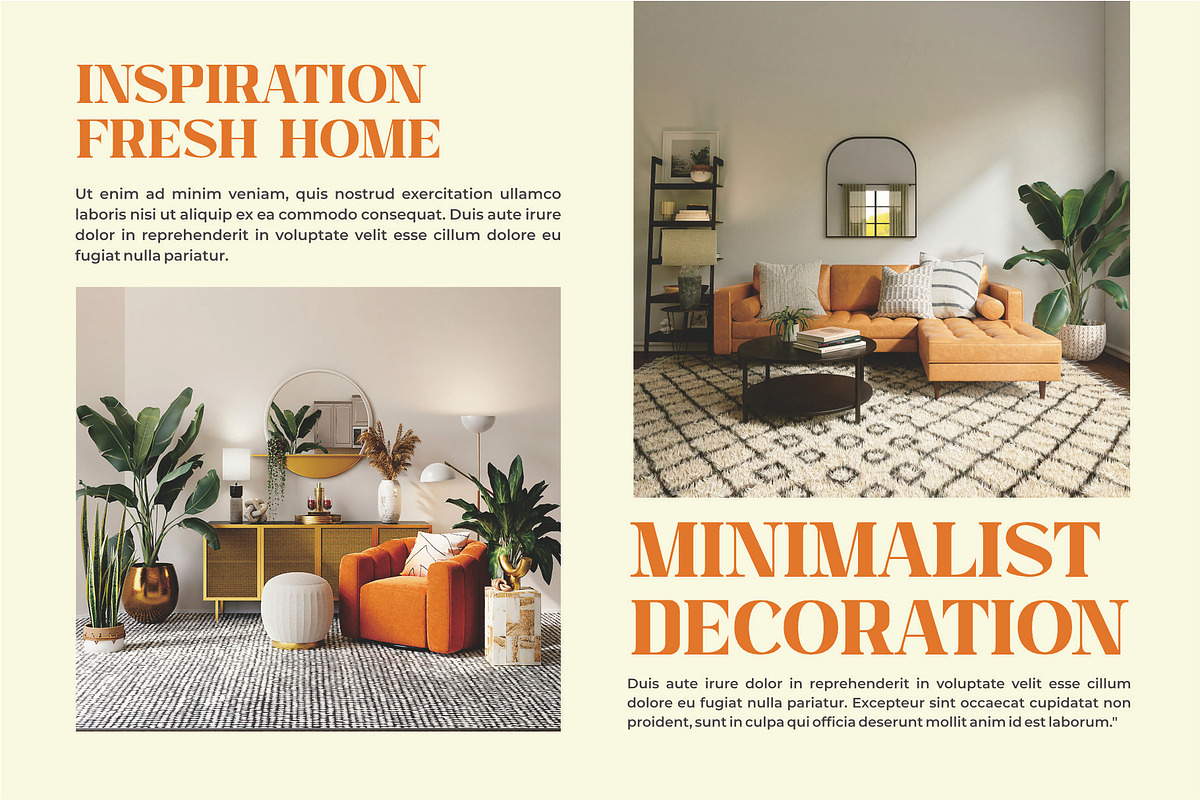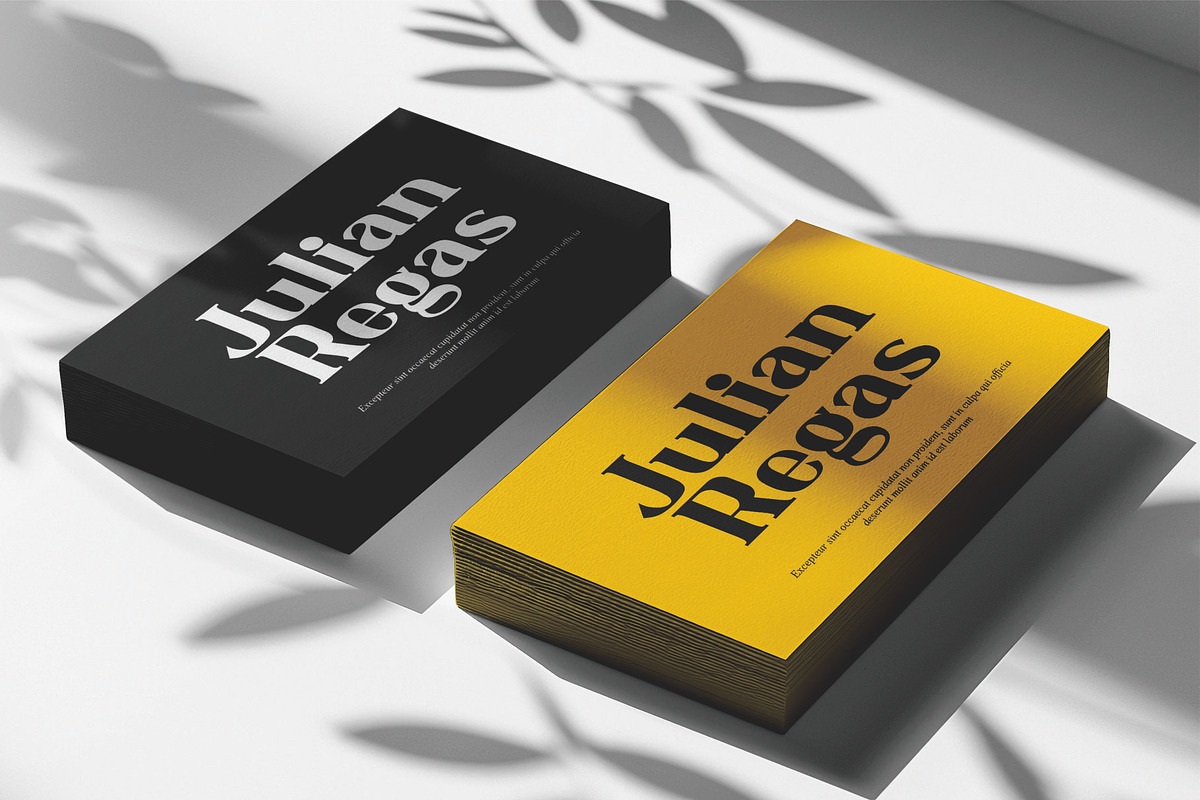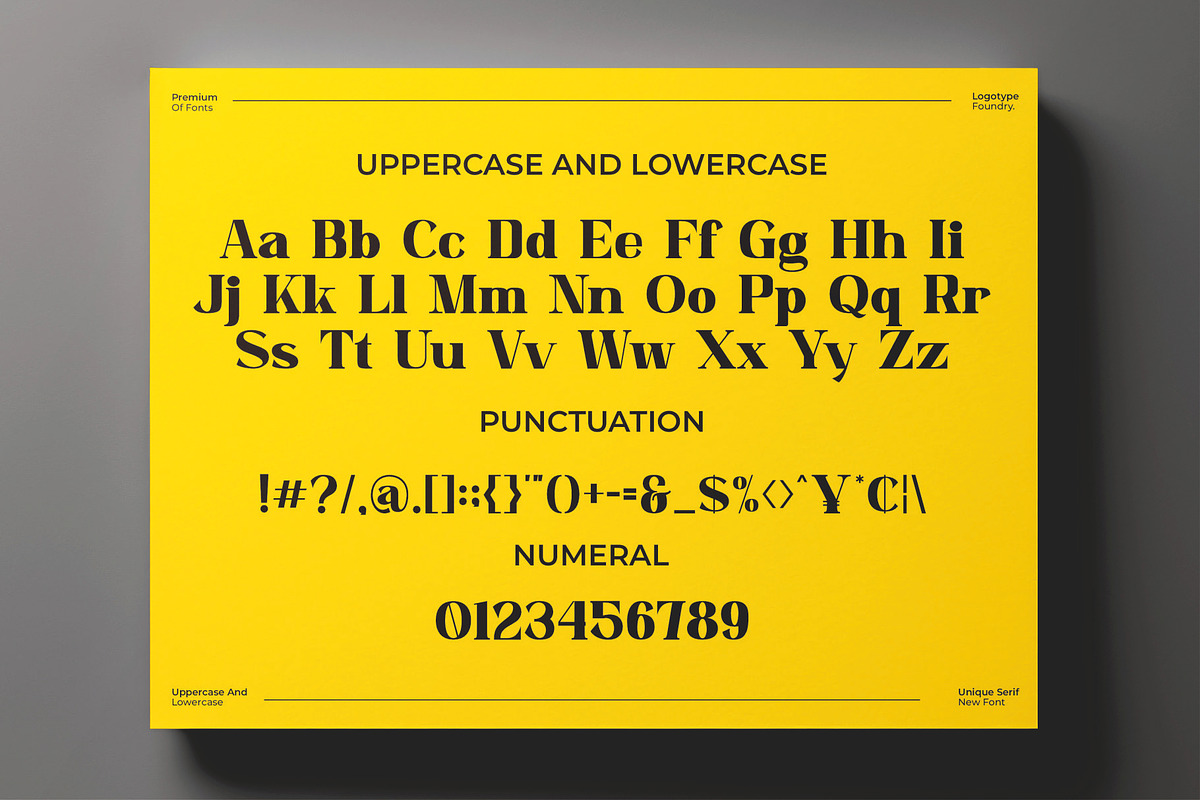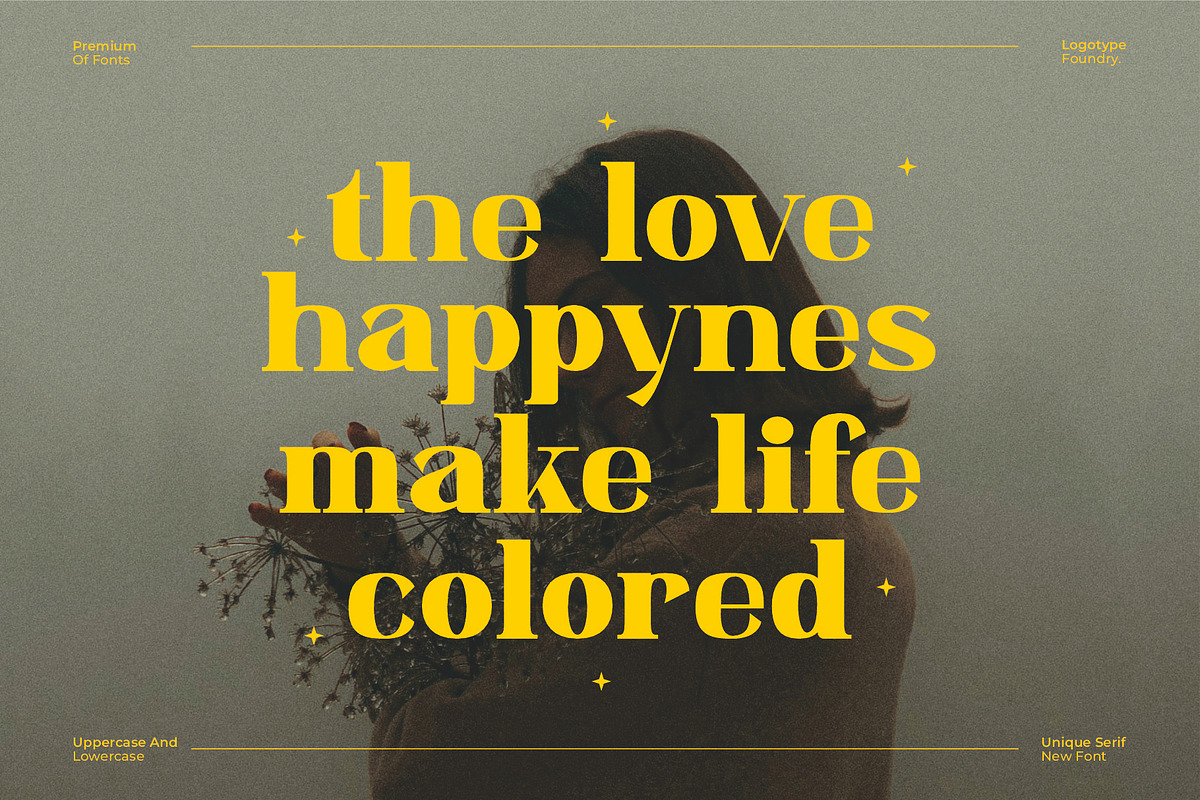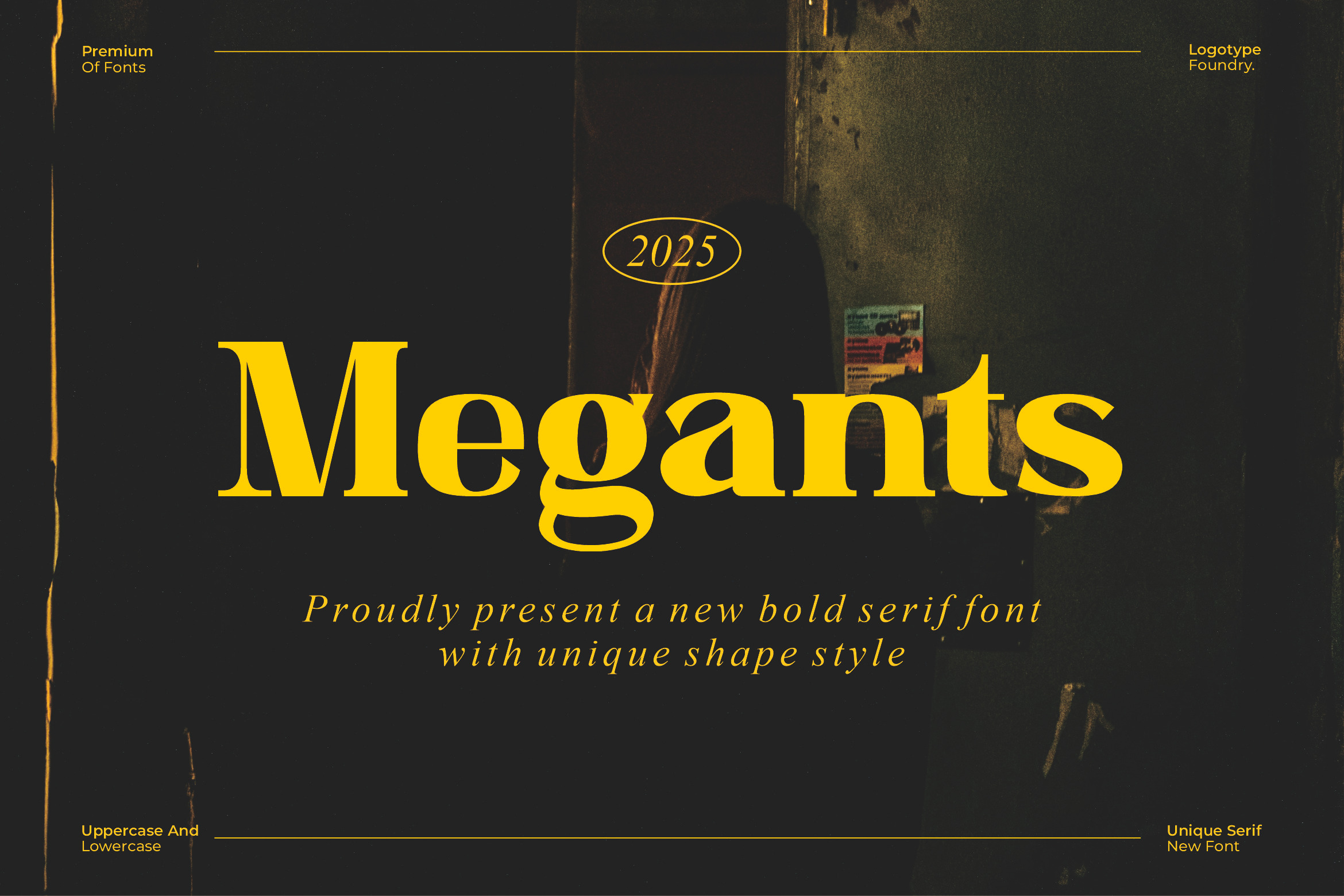
Megants || Unique Serif Font
Introducing Megants is a serif font with classic theme, trendy, bouncy and cute display font. It has a unique character with wood theme. It is perfect to be combined with invitation card designs, company logos, movie titles, movie names, business cards, book titles, brand names and various other designs.